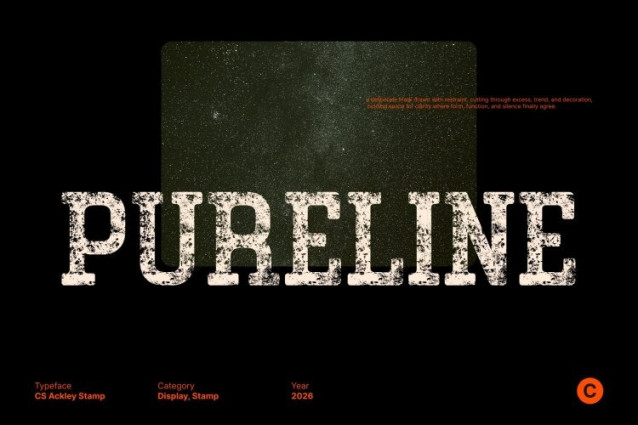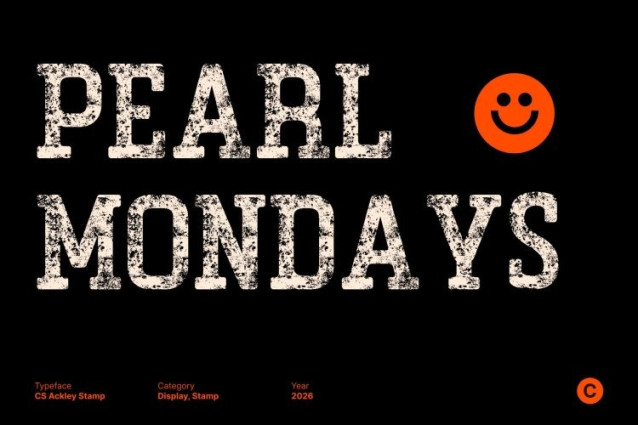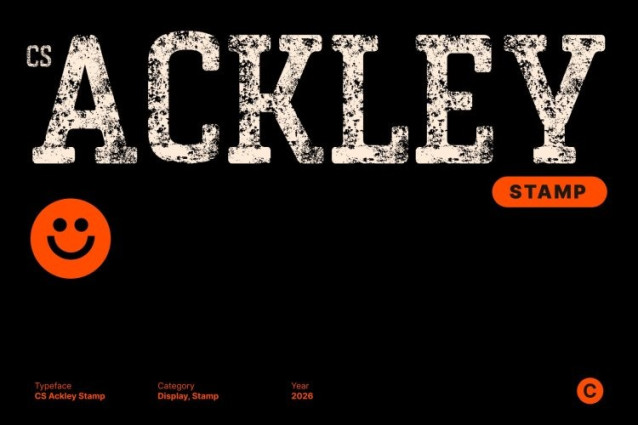
CS Ackley Stamp Font
CS Ackley Stamp Font This is a bold slab serif font built to deliver a powerful and industrial visual impact. Its thick blocks, sturdy slab serifs, and confident structure create a commanding presence that feels solid and authoritative. Enhanced with a stamp effect, the letterforms gain a rugged, old-style character that adds depth and authenticity.
Vintage Texture with Maximum Readability
Designed for clarity and strength, this font maintains excellent legibility even in large-scale applications. The stamped texture introduces artistic imperfections inspired by traditional print and industrial markings, giving the font a vintage, worn-in look while keeping the letterforms sharp and readable from any distance.
Industrial Strength with Classic Appeal
The modern proportions combined with textured slab serifs create a sturdy, timeless aesthetic. This font communicates reliability, boldness, and heritage, making it ideal for brands that want a strong identity with an old-industrial edge. The vintage finish adds seriousness and character to logos, packaging, and promotional materials.
Perfect for Sports, Posters, and Bold Branding
From sports branding and apparel to posters, signage, and advertisements, this font delivers an energetic and powerful typographic voice. Its bold structure, artistic texture, and vintage industrial feel amplify intensity and impact, ensuring every design feels strong, expressive, and built to last.